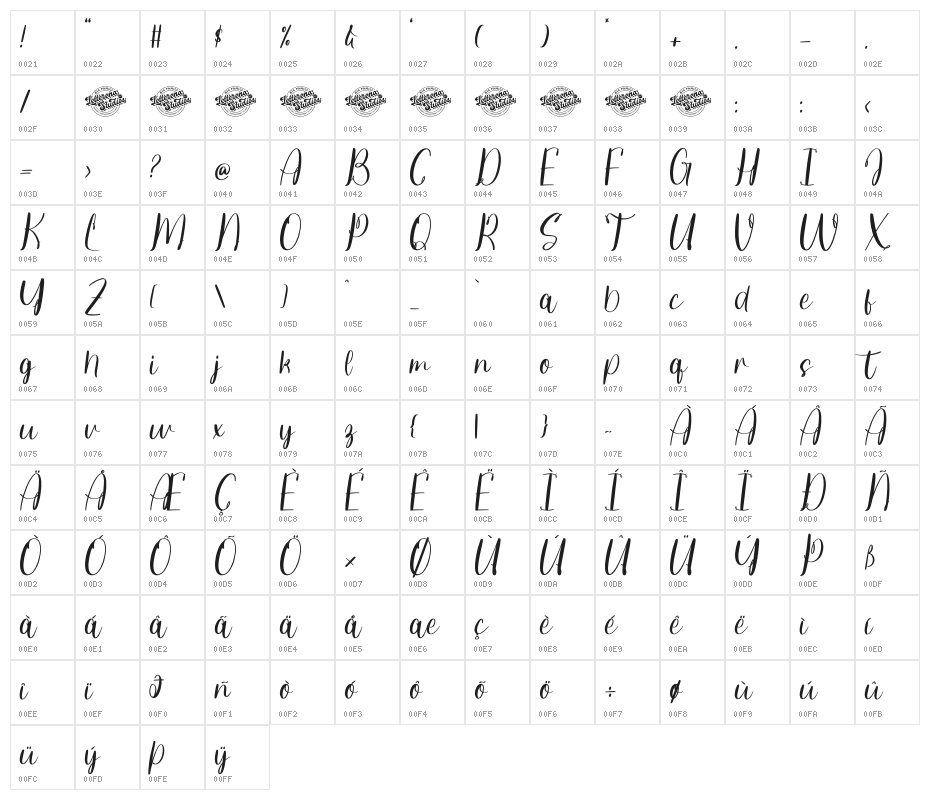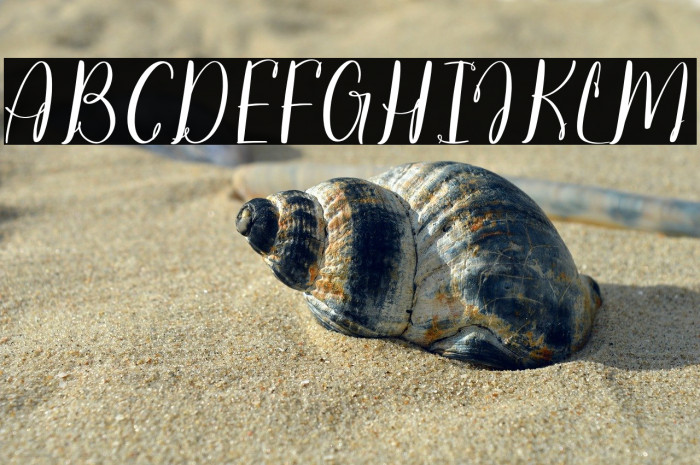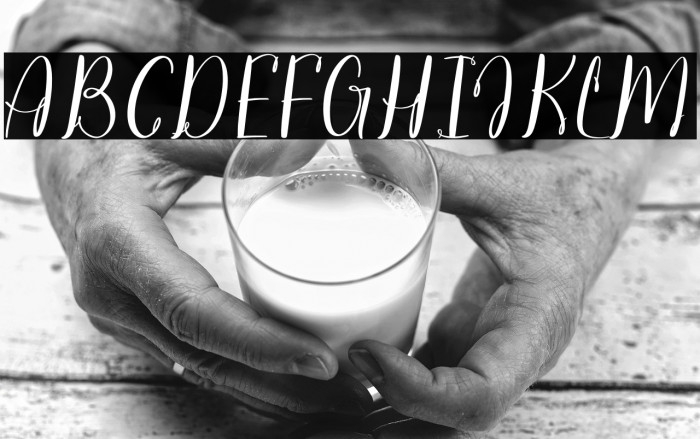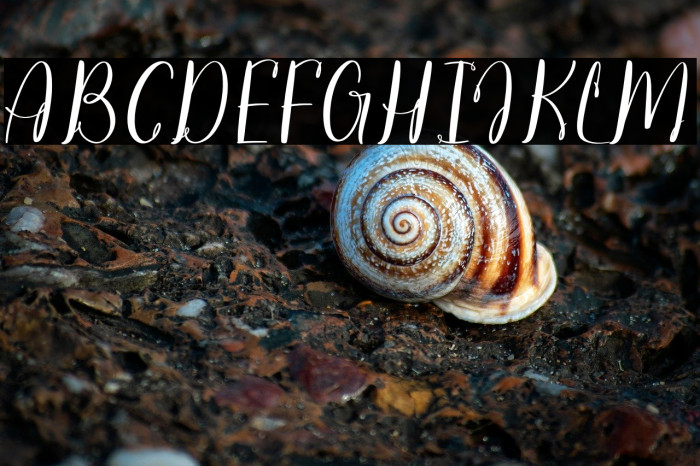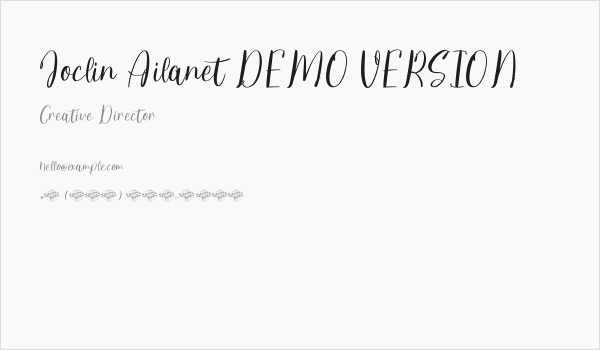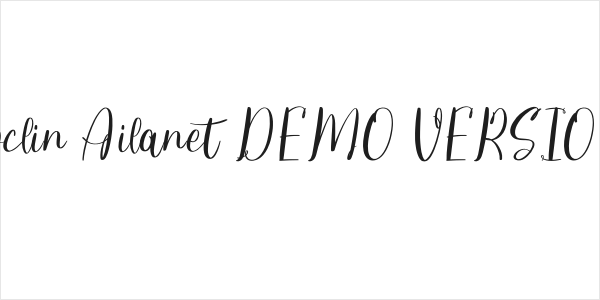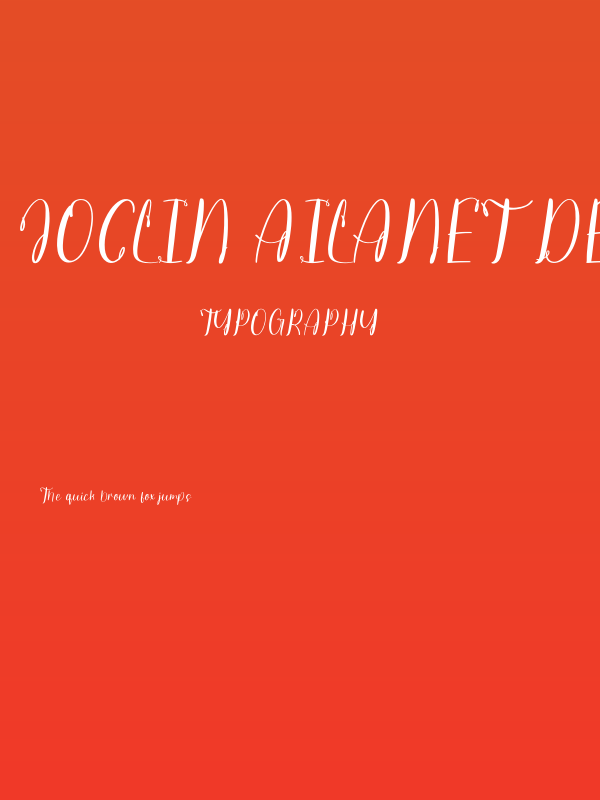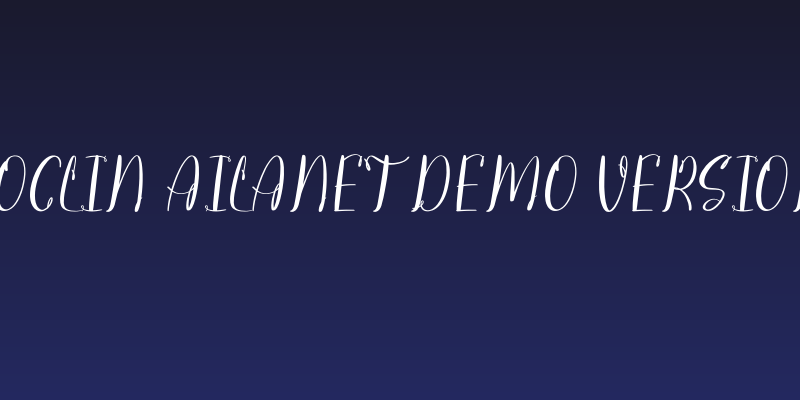
Joclin Ailanet DEMO VERSION Font
Joclin Ailanet DEMO VERSION Description
A flowing, handwritten script font with elegant, tall letterforms and playful swashes, featuring a mix of thick and thin strokes for a dynamic, modern appearance. The characters are slightly condensed with high ascenders and deep descenders, giving the font a lively and expressive feel.
| Overall Style | Modern, Decorative, Handwritten |
| Use Case | Logos, Headlines, Invitations, Decorative text |
| Proposed Projects | Wedding invitations, greeting cards, branding, social media graphics, quotes, and event posters. |